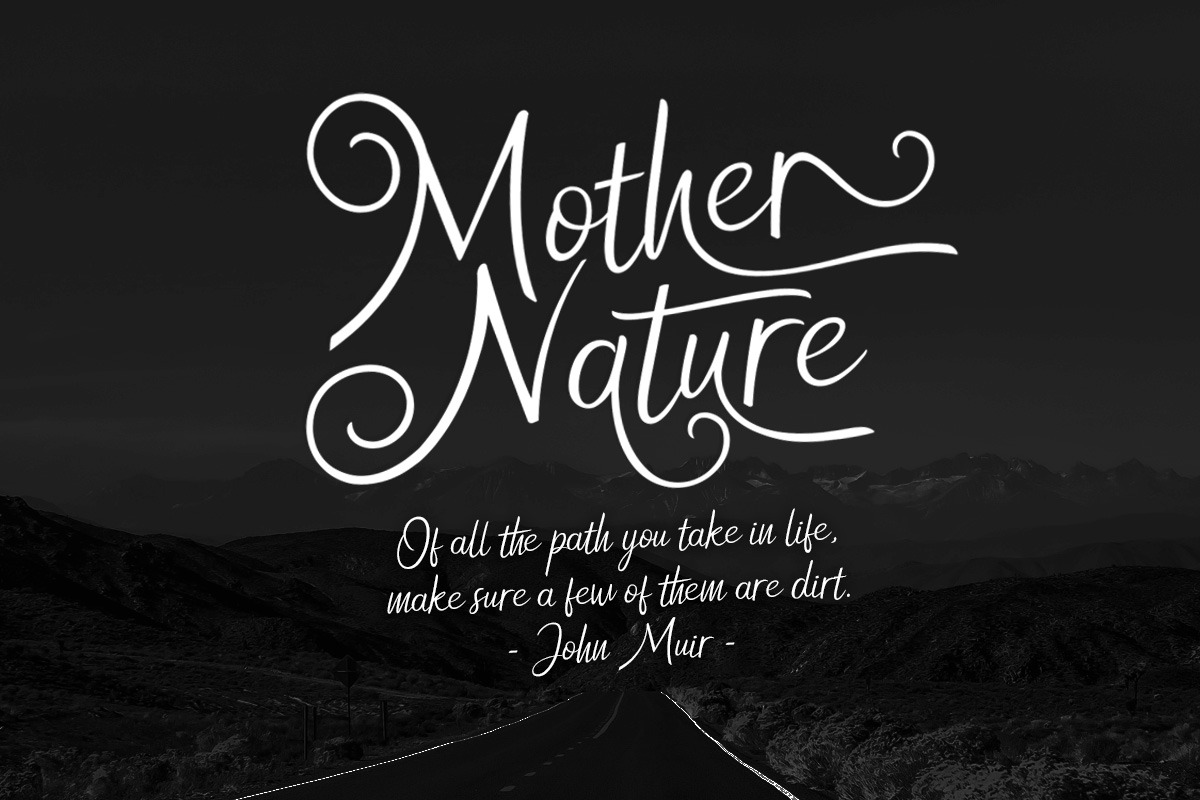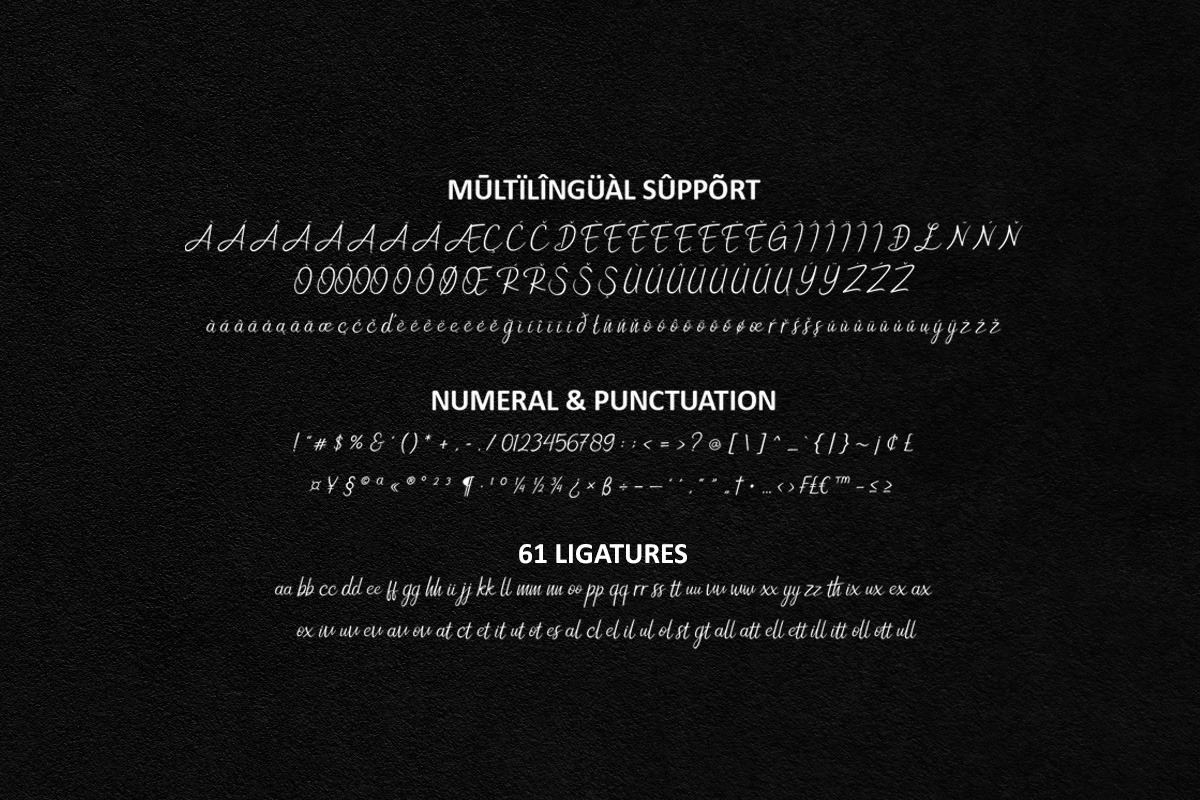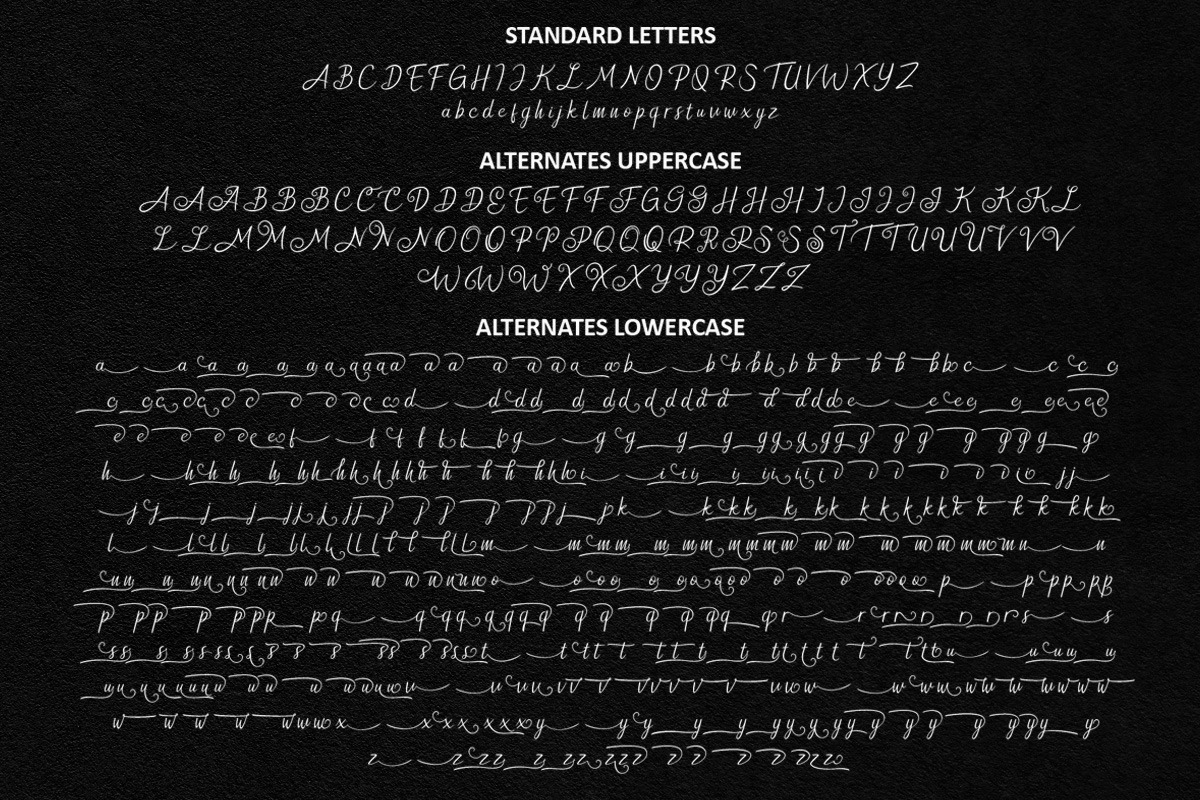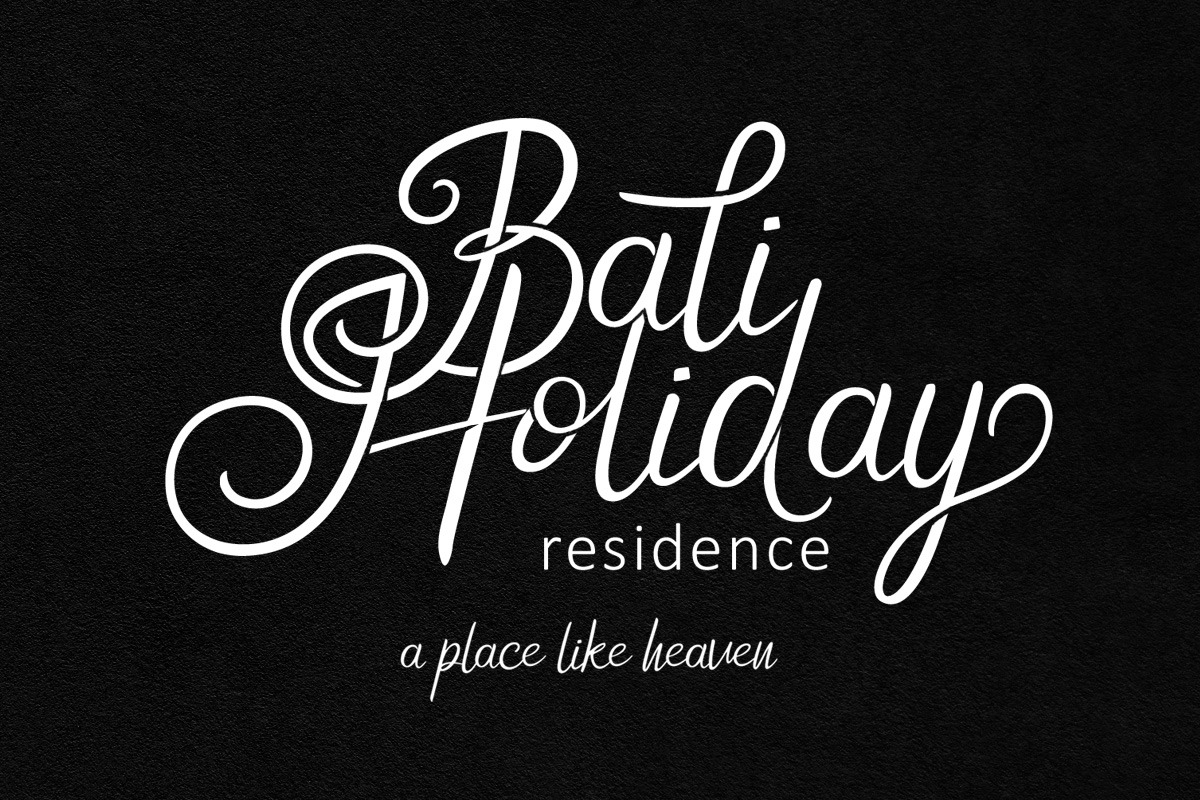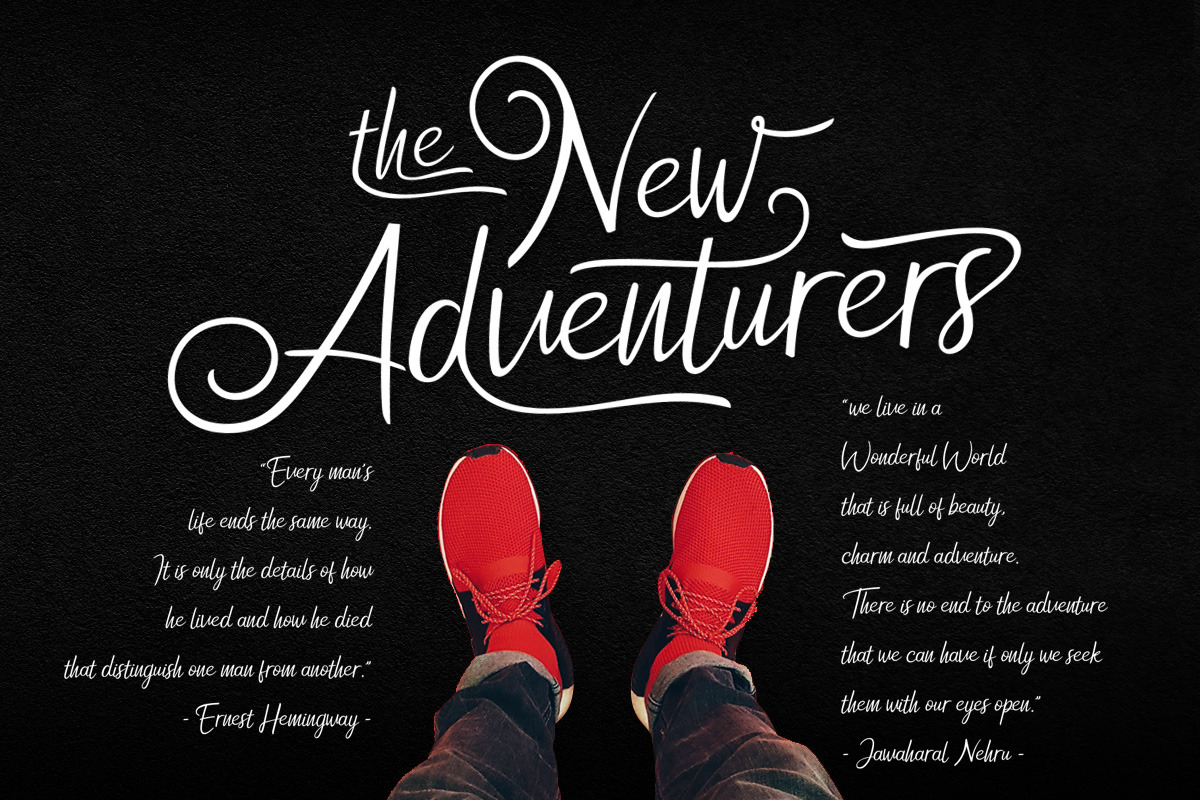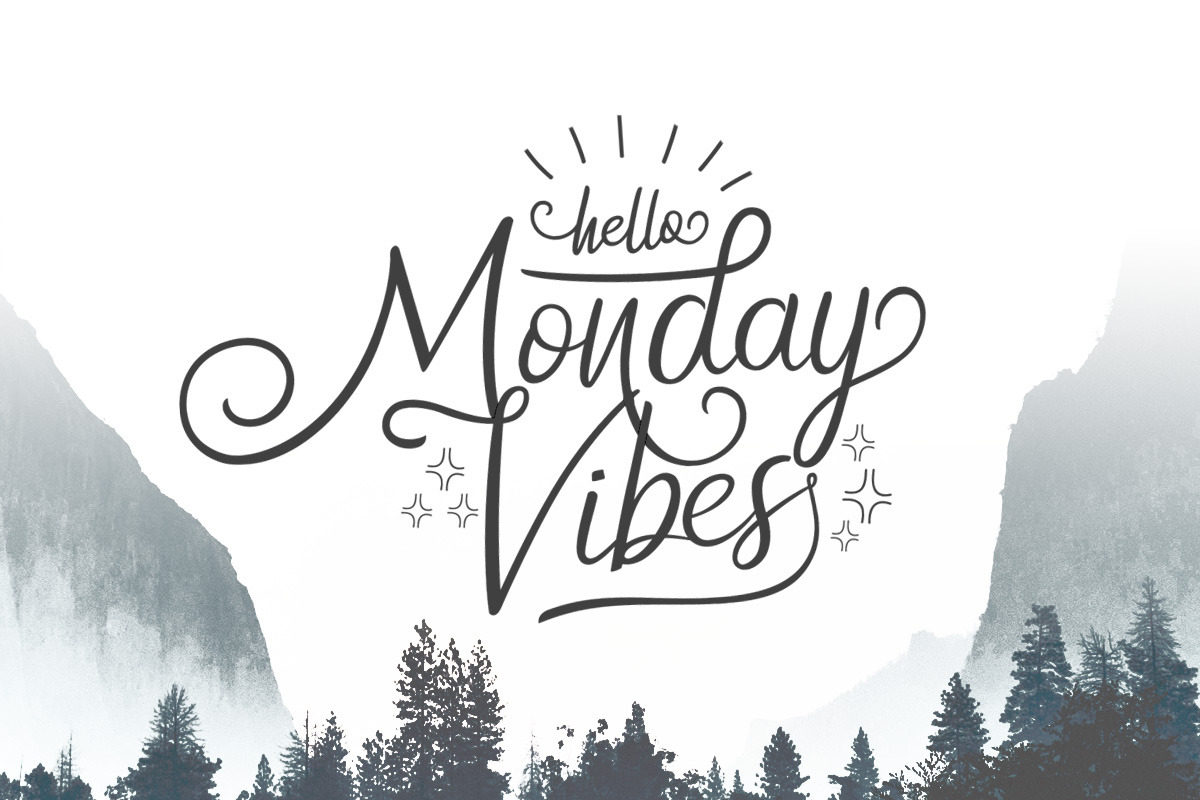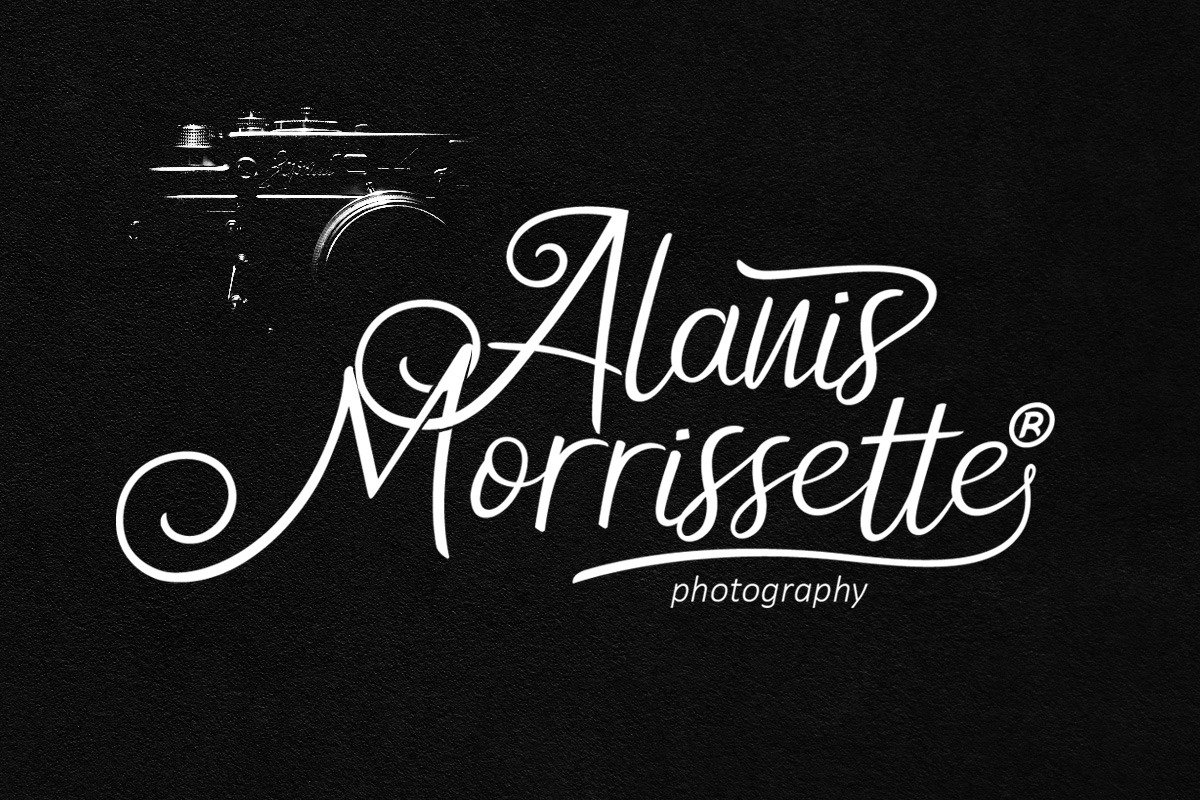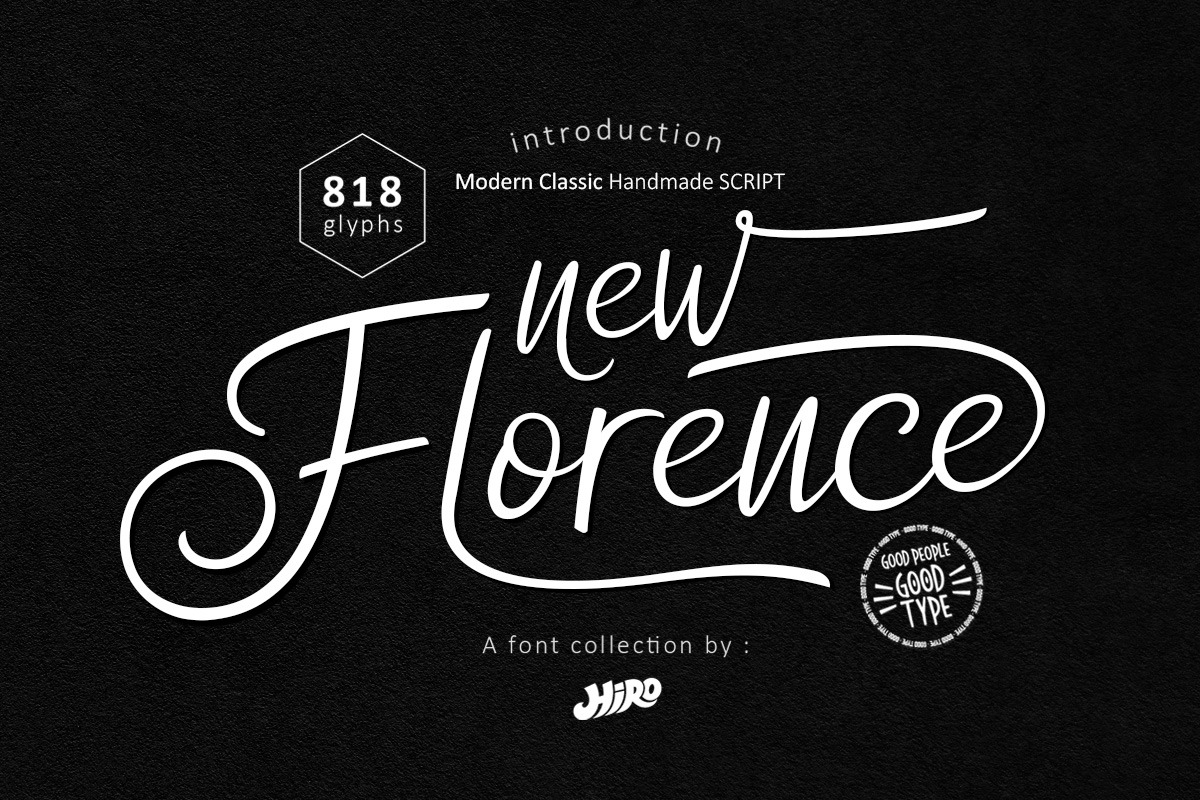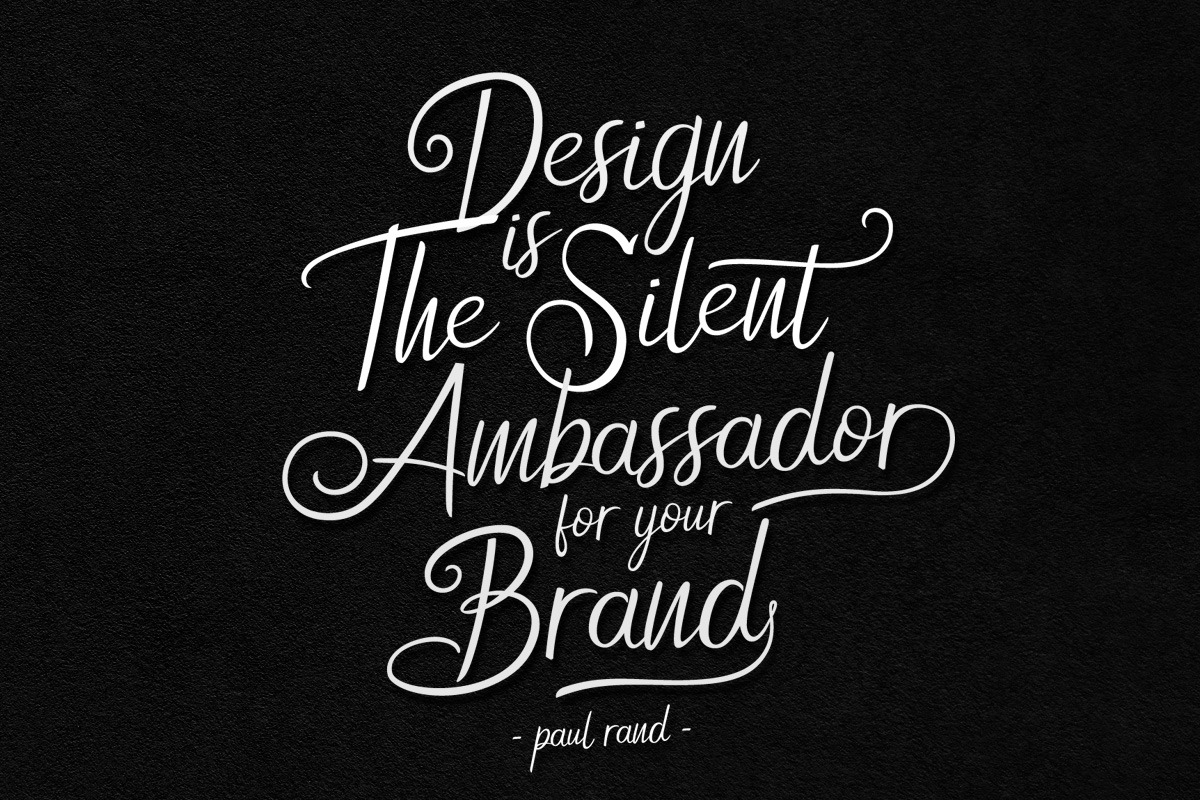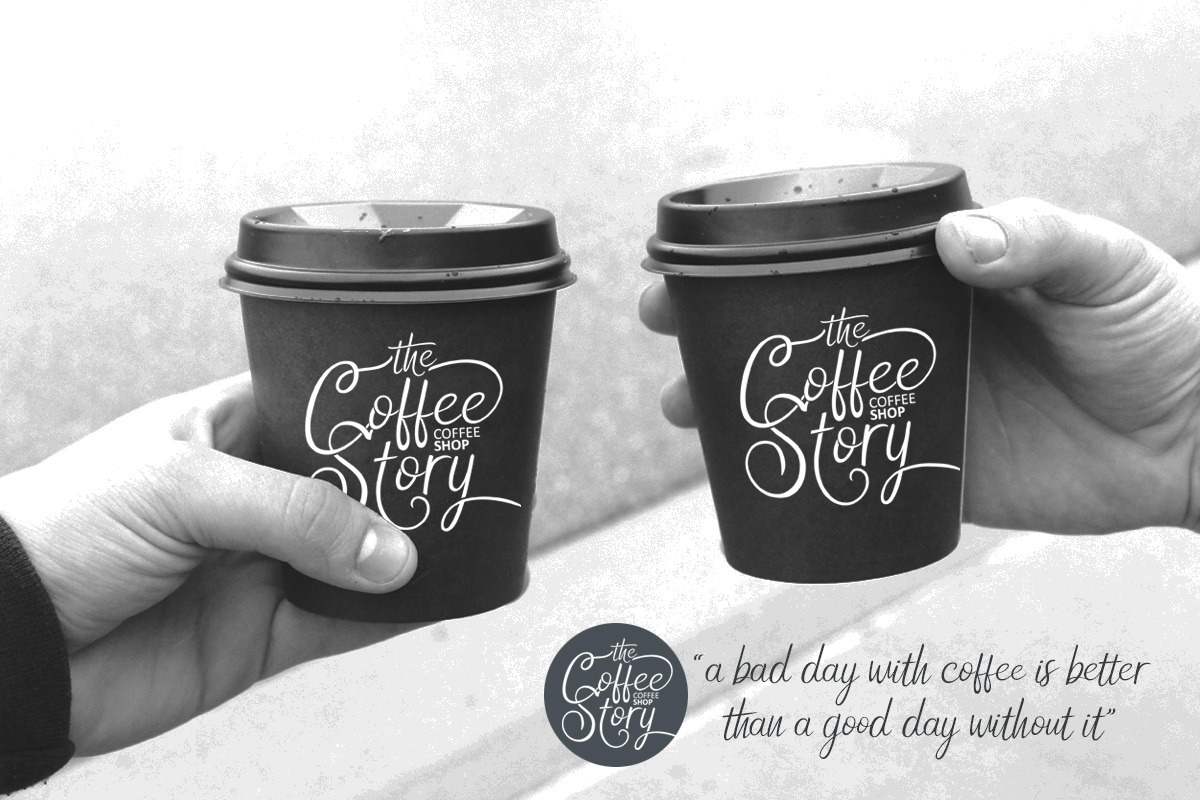
New Florence - Modern Classic Font
New Florence is a Modern Classic Handmade Script.
New Florence has more than 818 Glyphs, with (82 Glyphs Uppercase), (427 Glyphs Lowercase and 65 Glyphs Ligatures.
This Font template contains Modern Classic, Classy, Elegant, readable, stylish, cool, catchy and easy to use.
- Stylistic Set